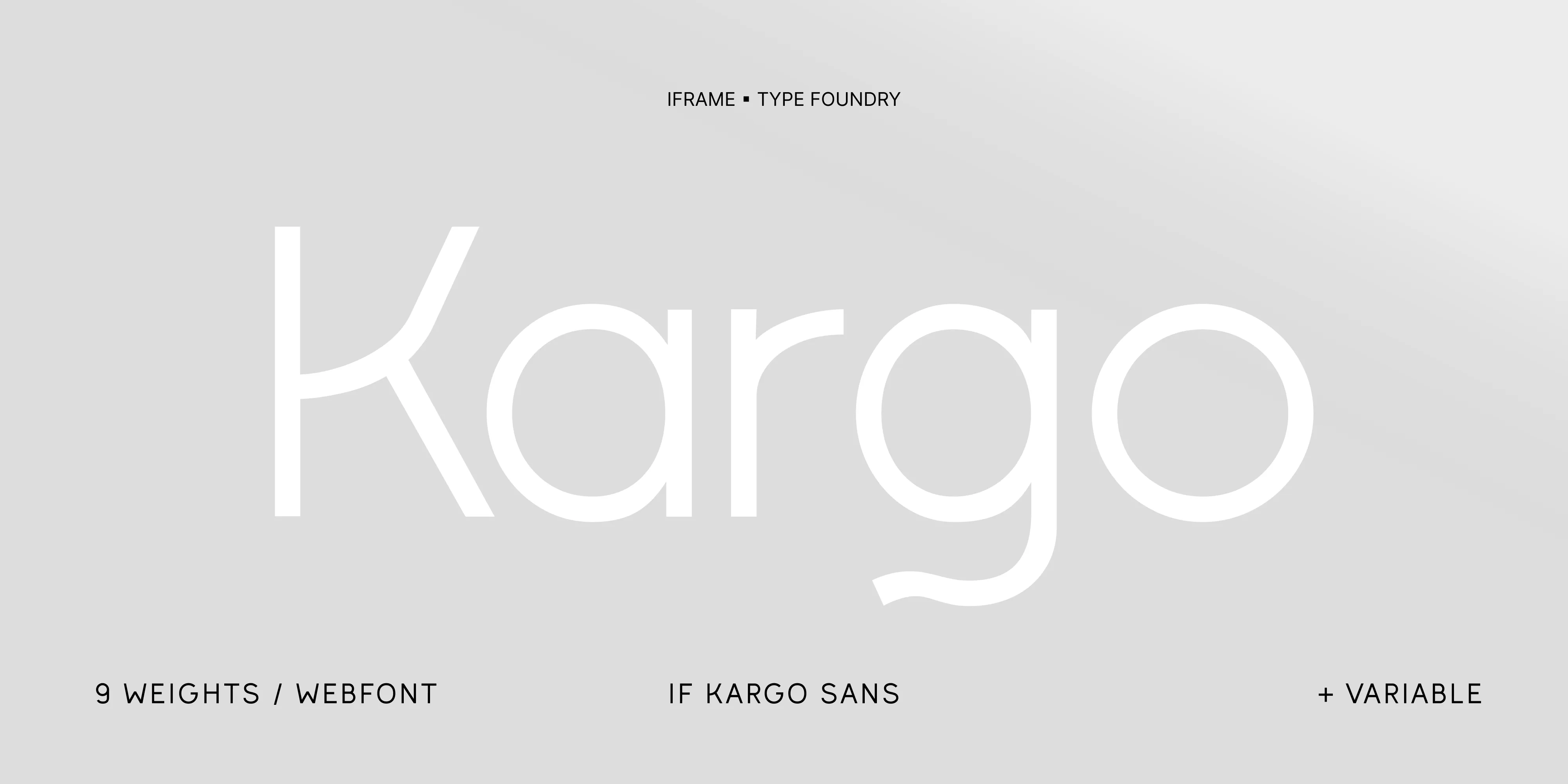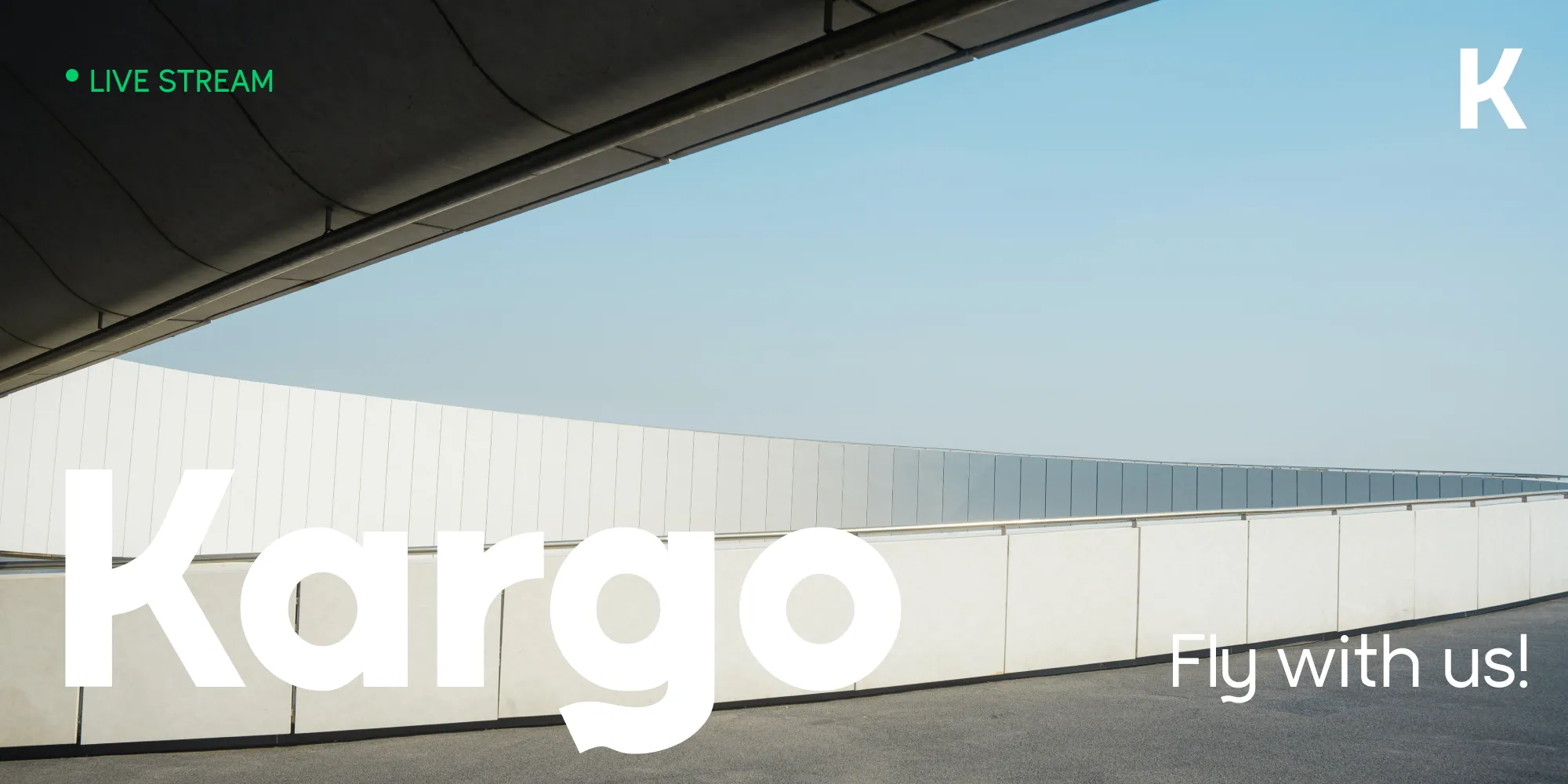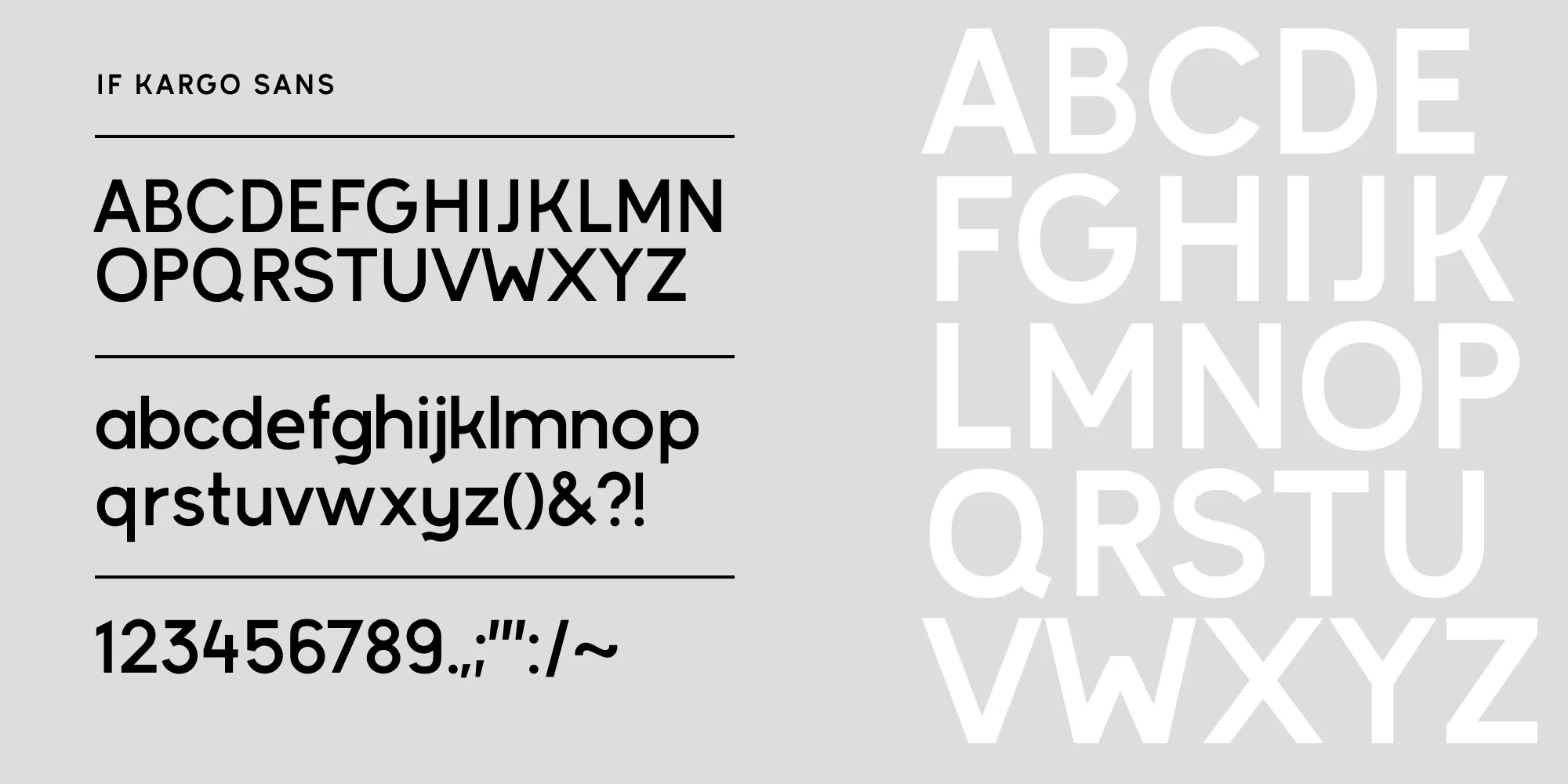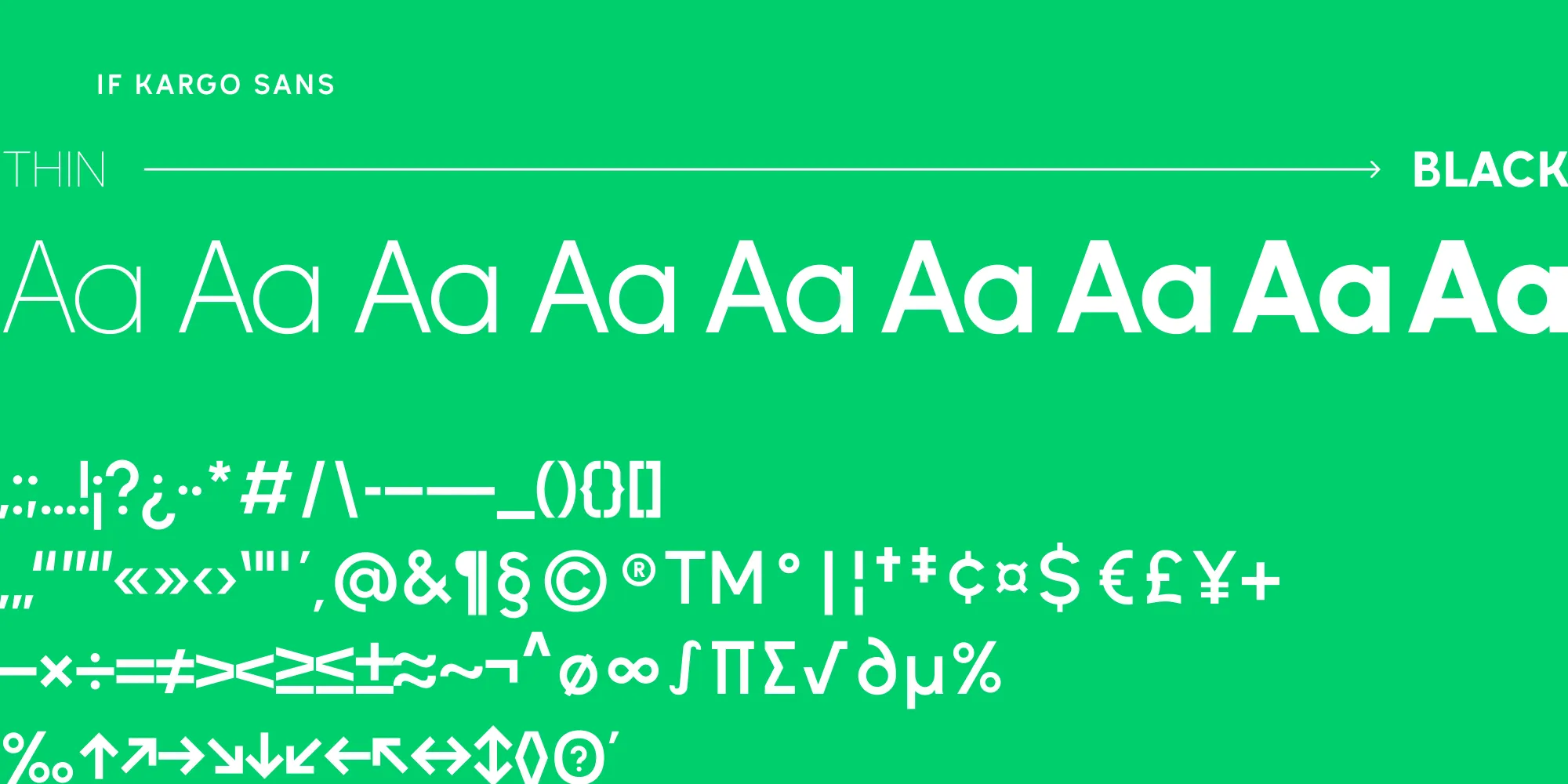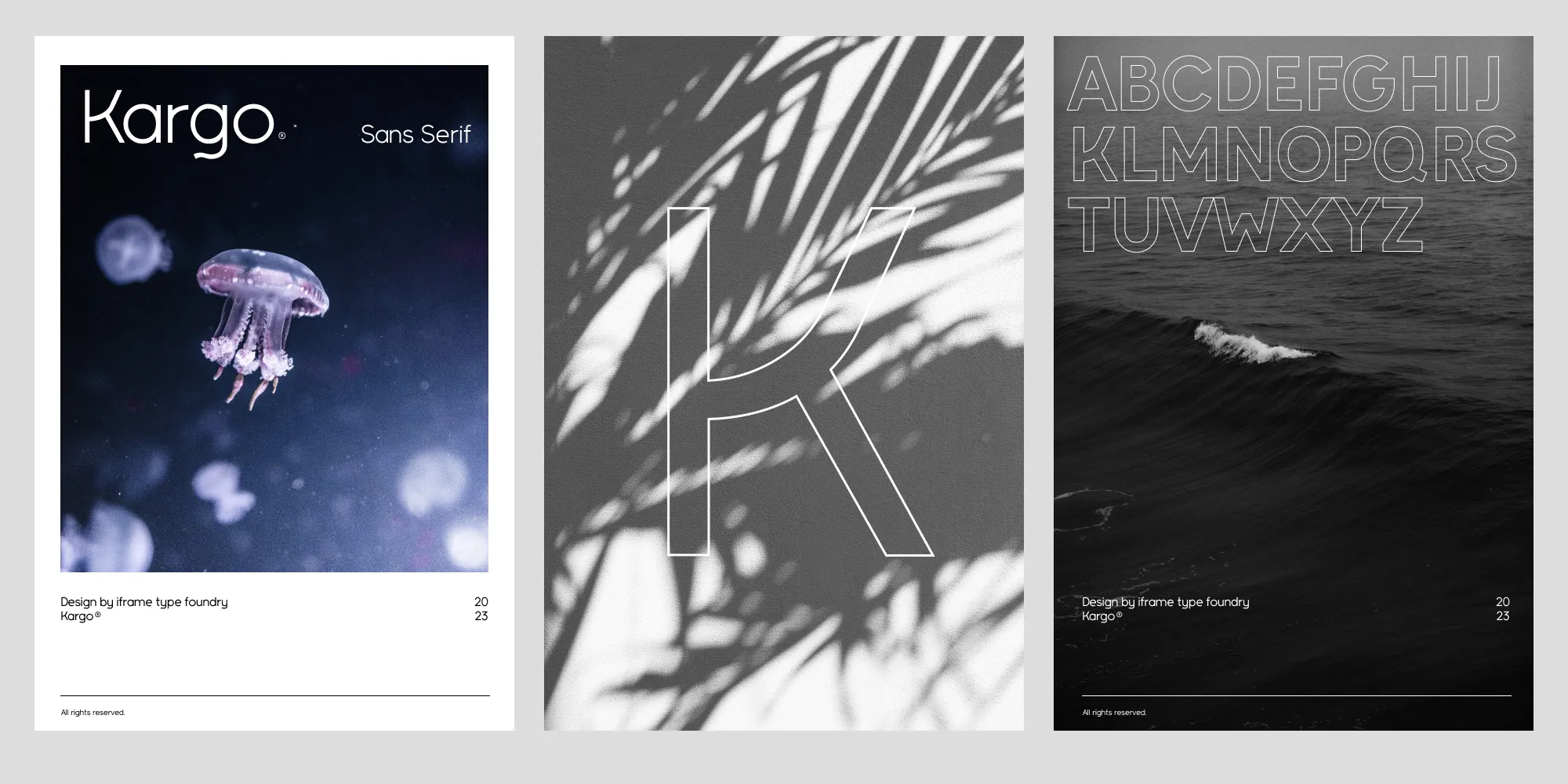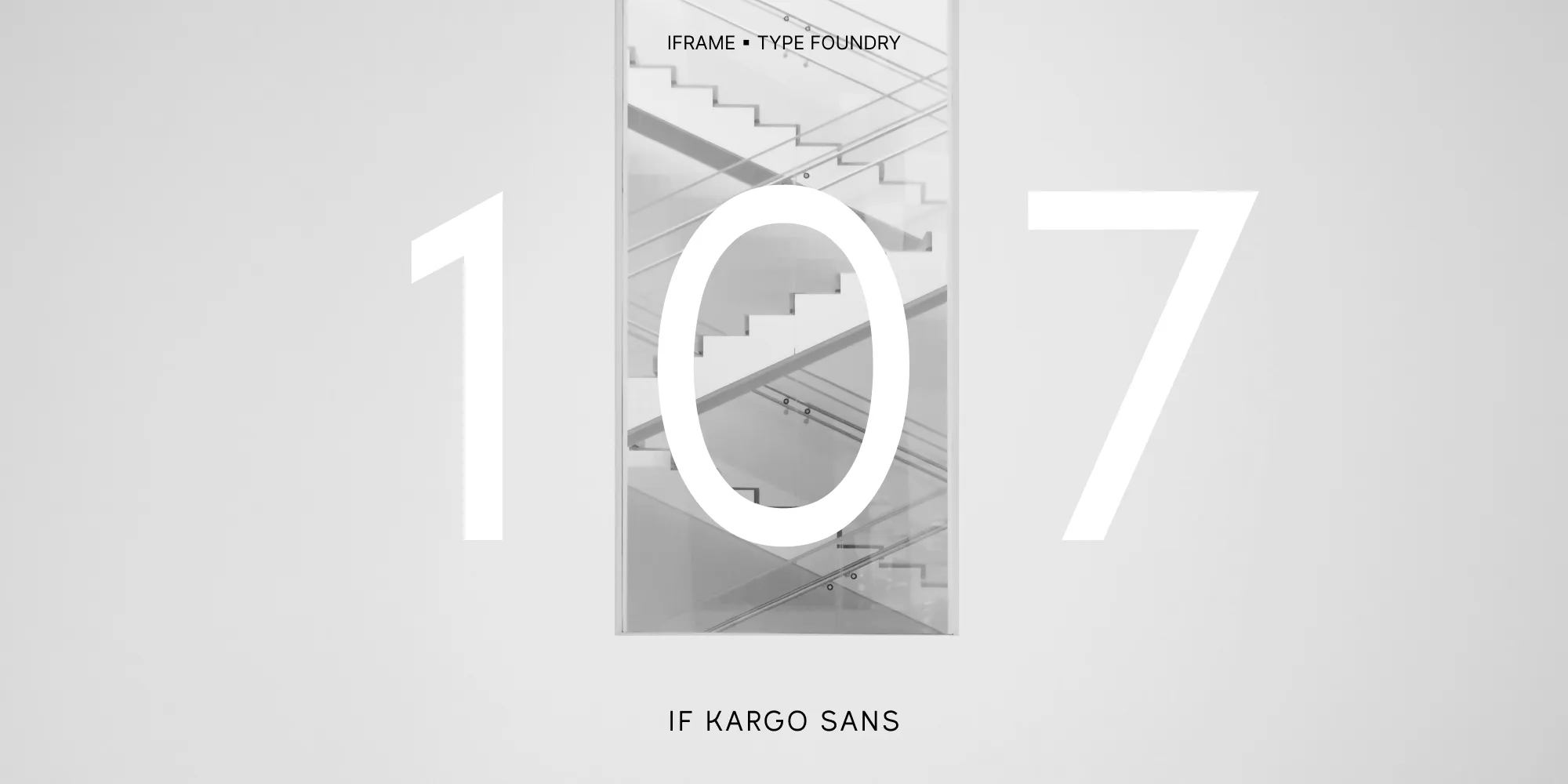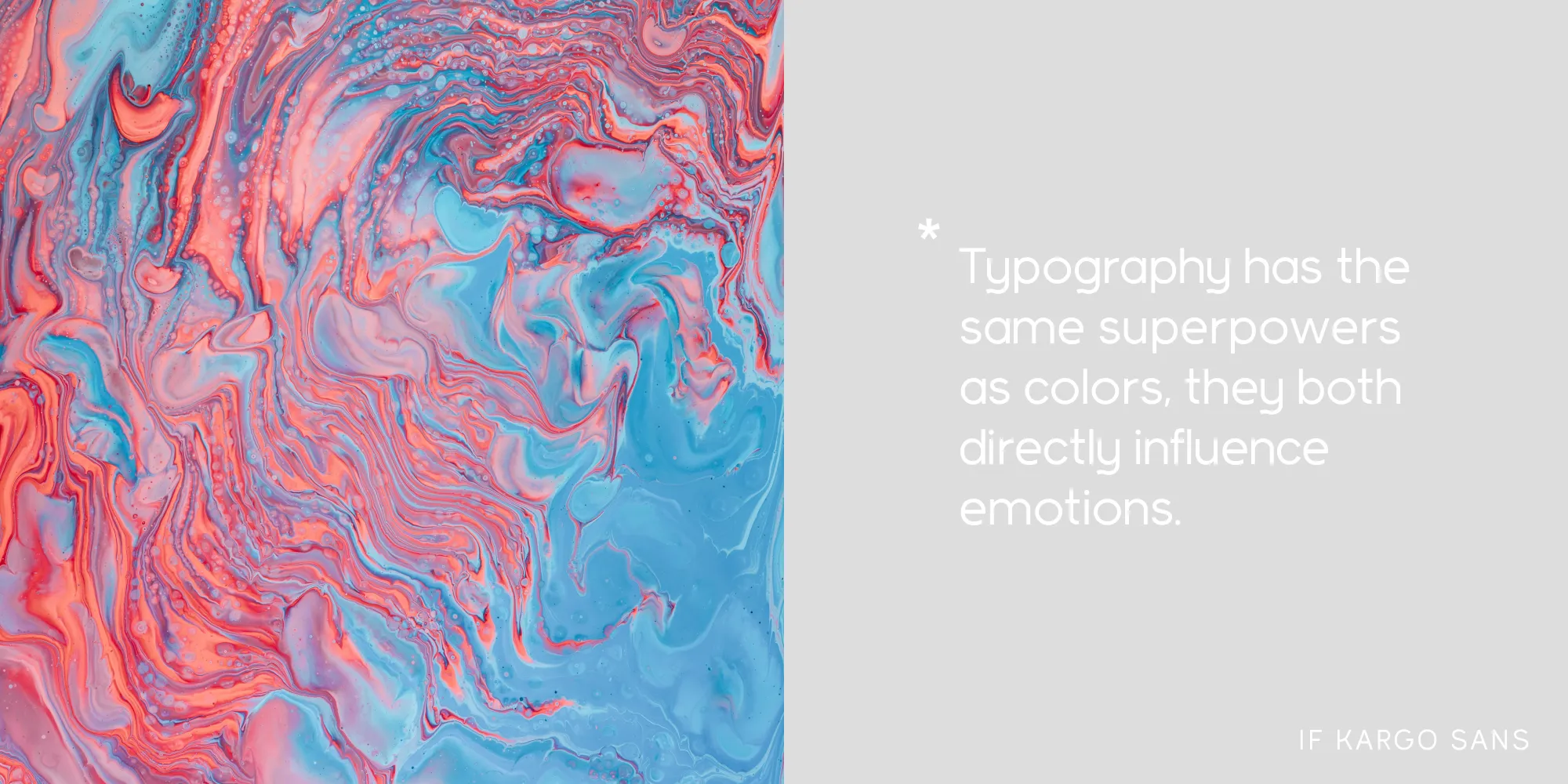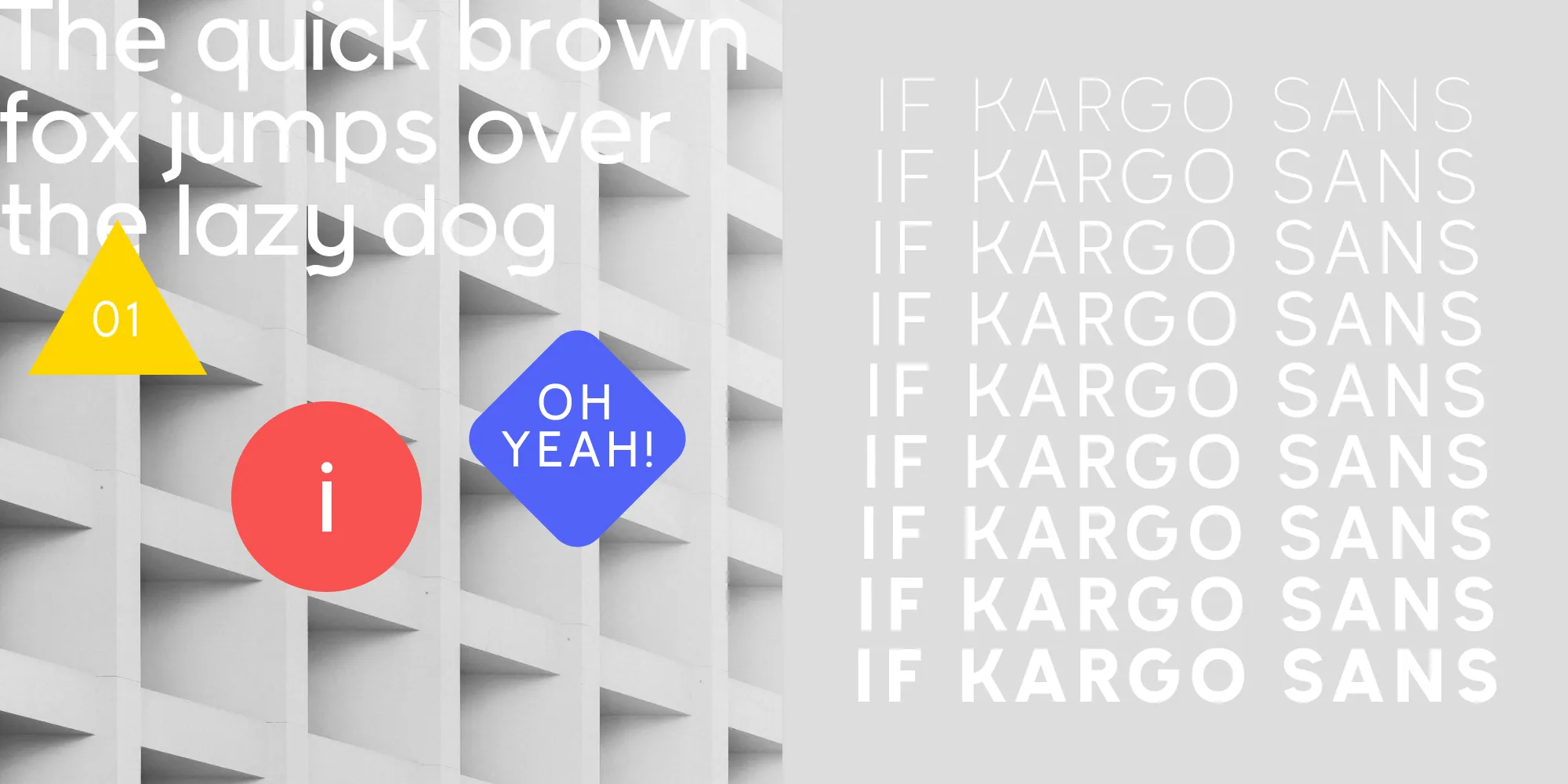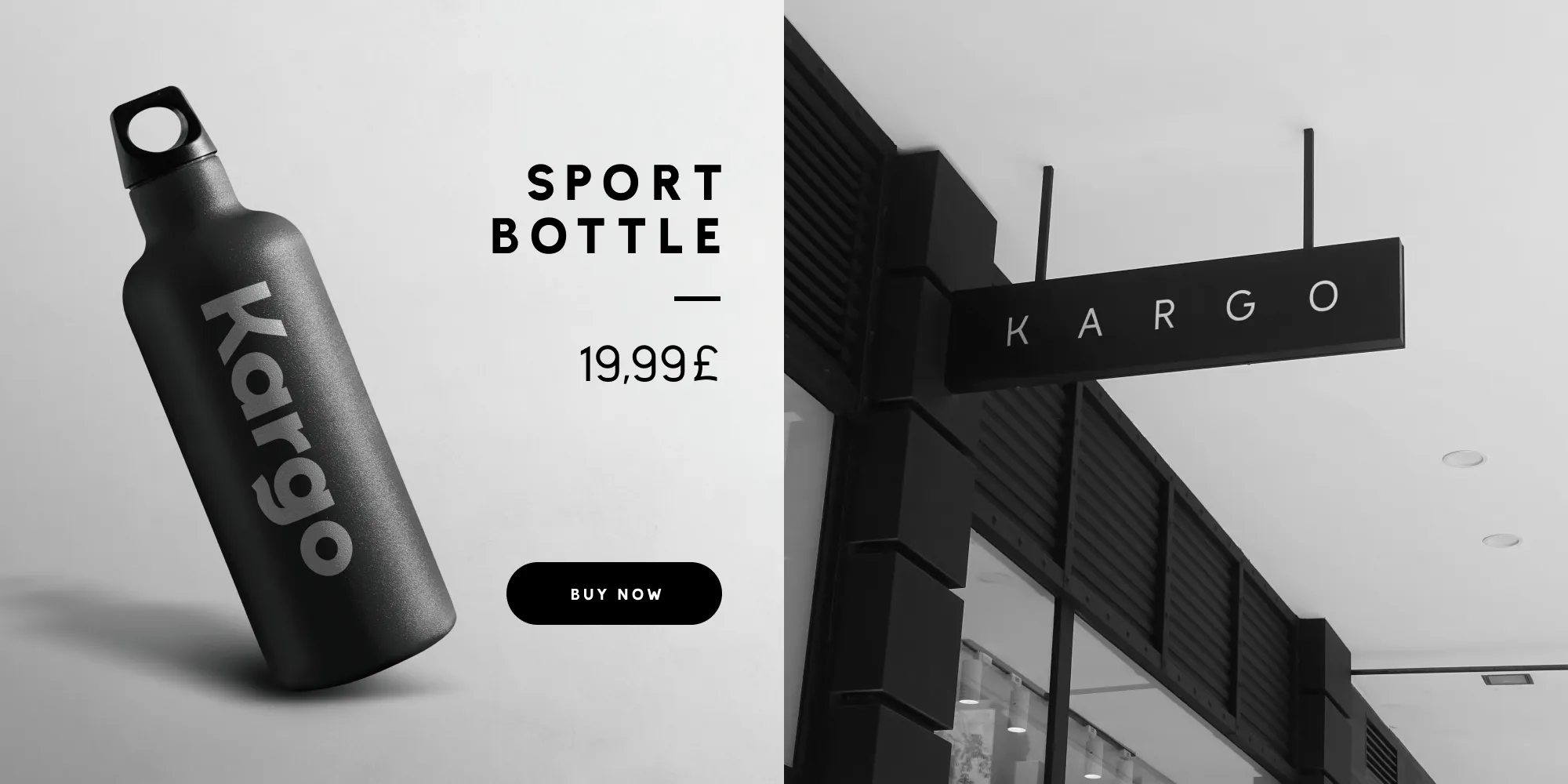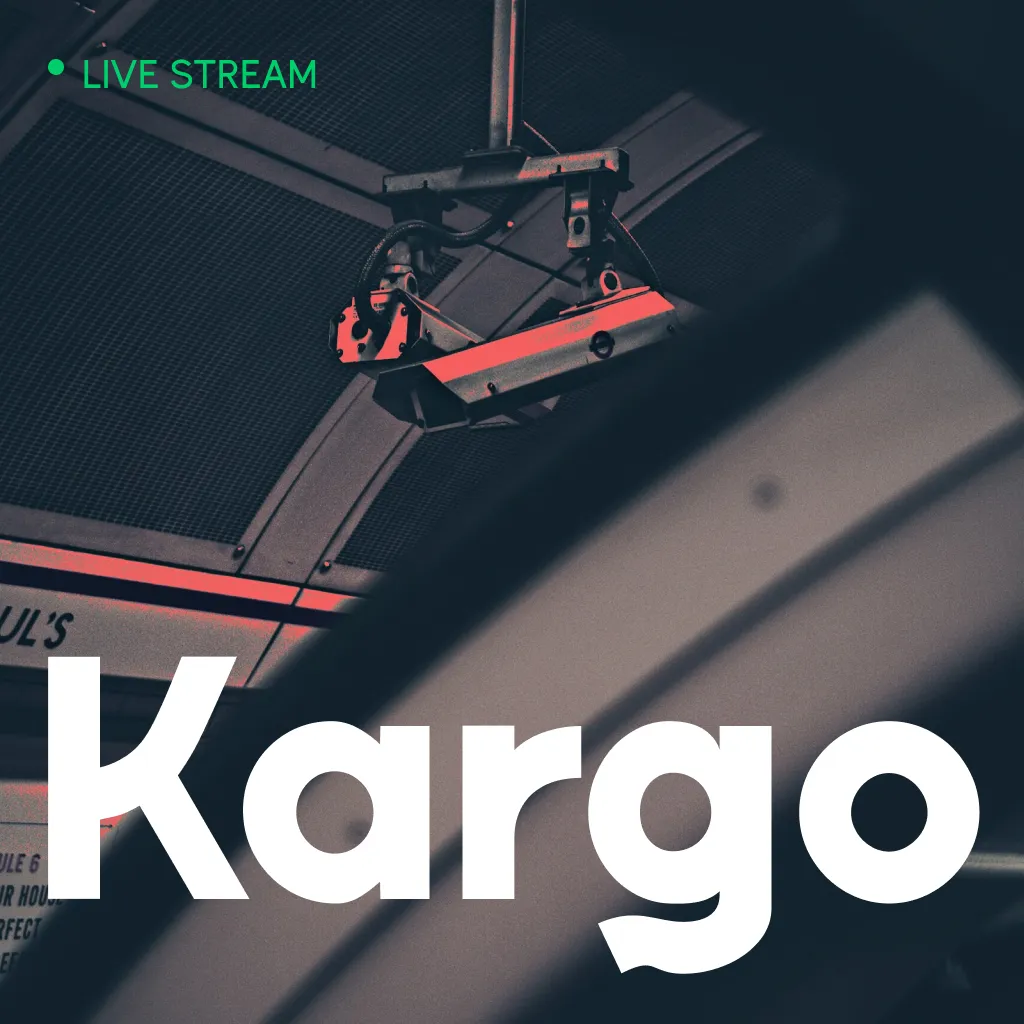
KARGO DISPLAY FONT
Kargo Sans Typeface is a great choice for sleek, modern logos, packaging and branding.
FEATURES
- Opentype Features
- 8 weights
- Upper / lower case, numbers, punctuation
- Supported Languages: Latin & Greek